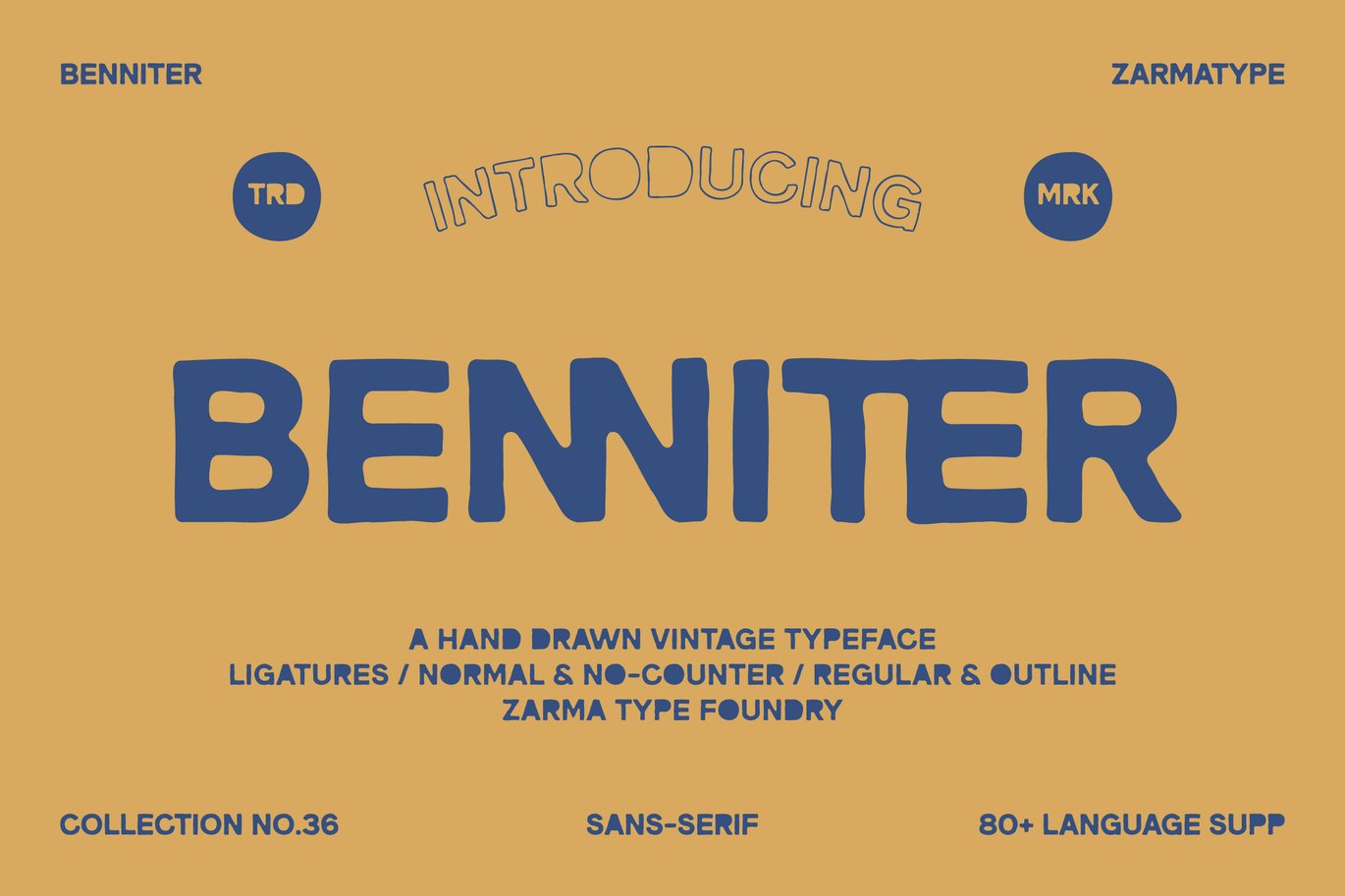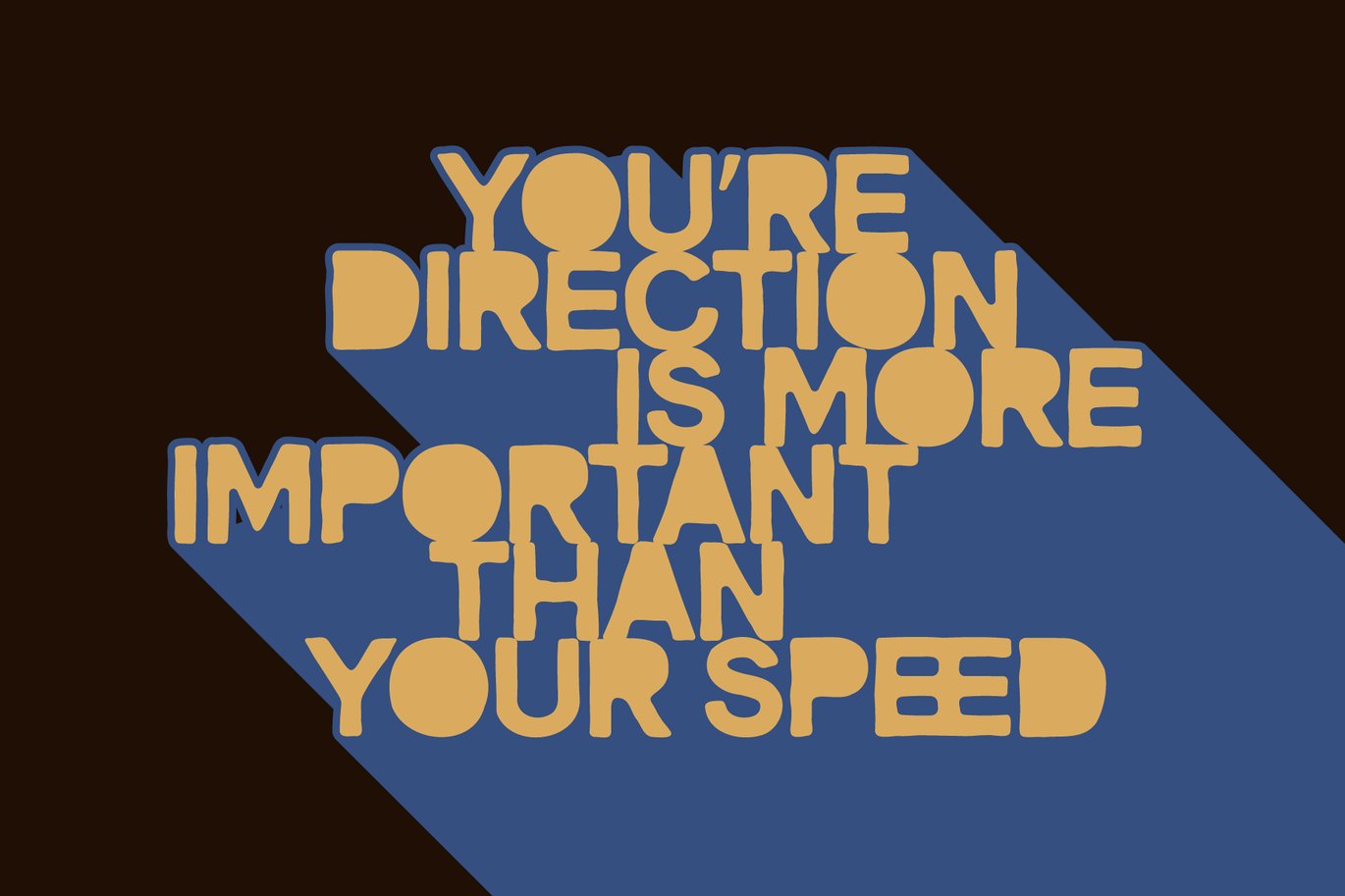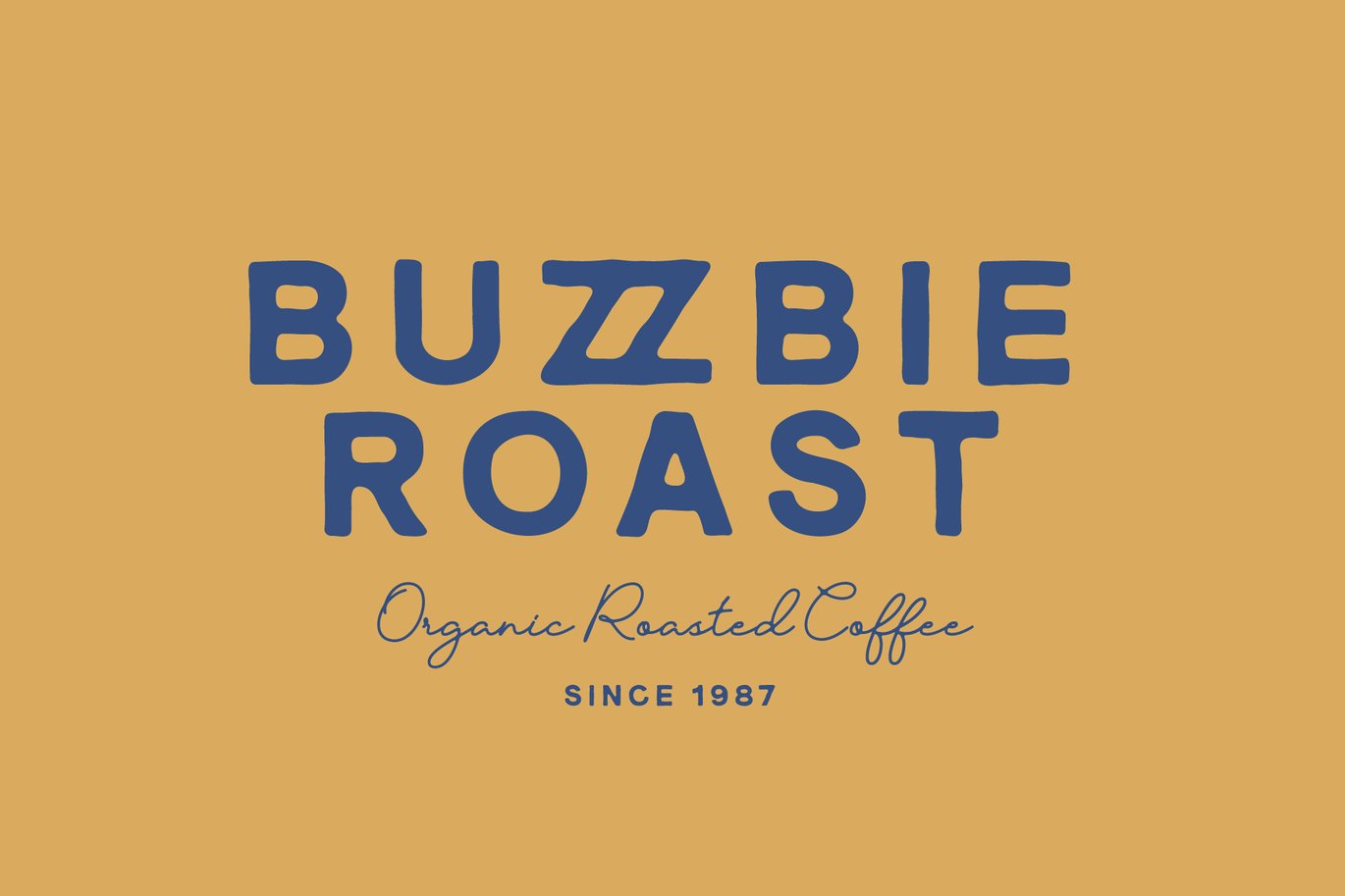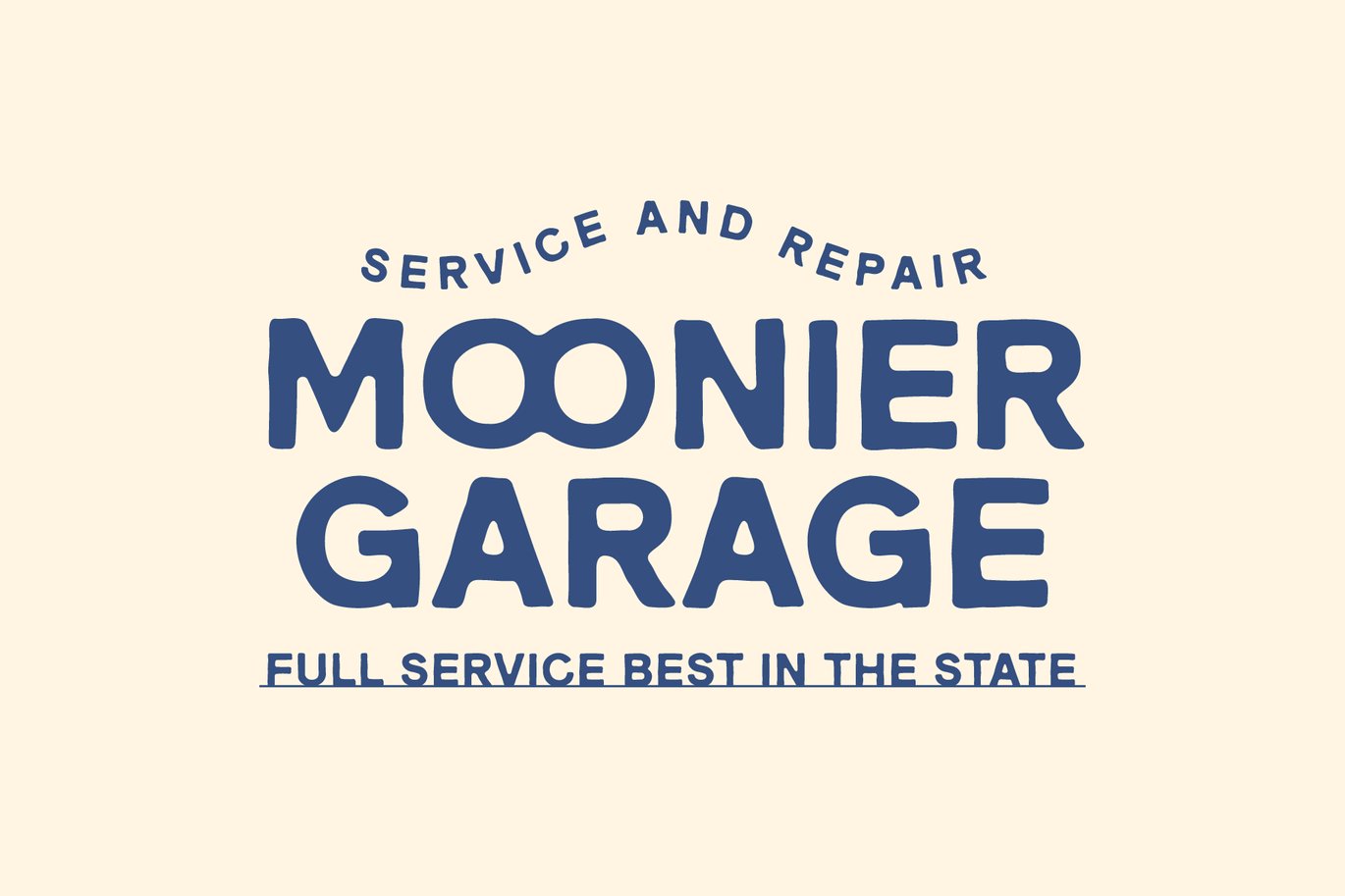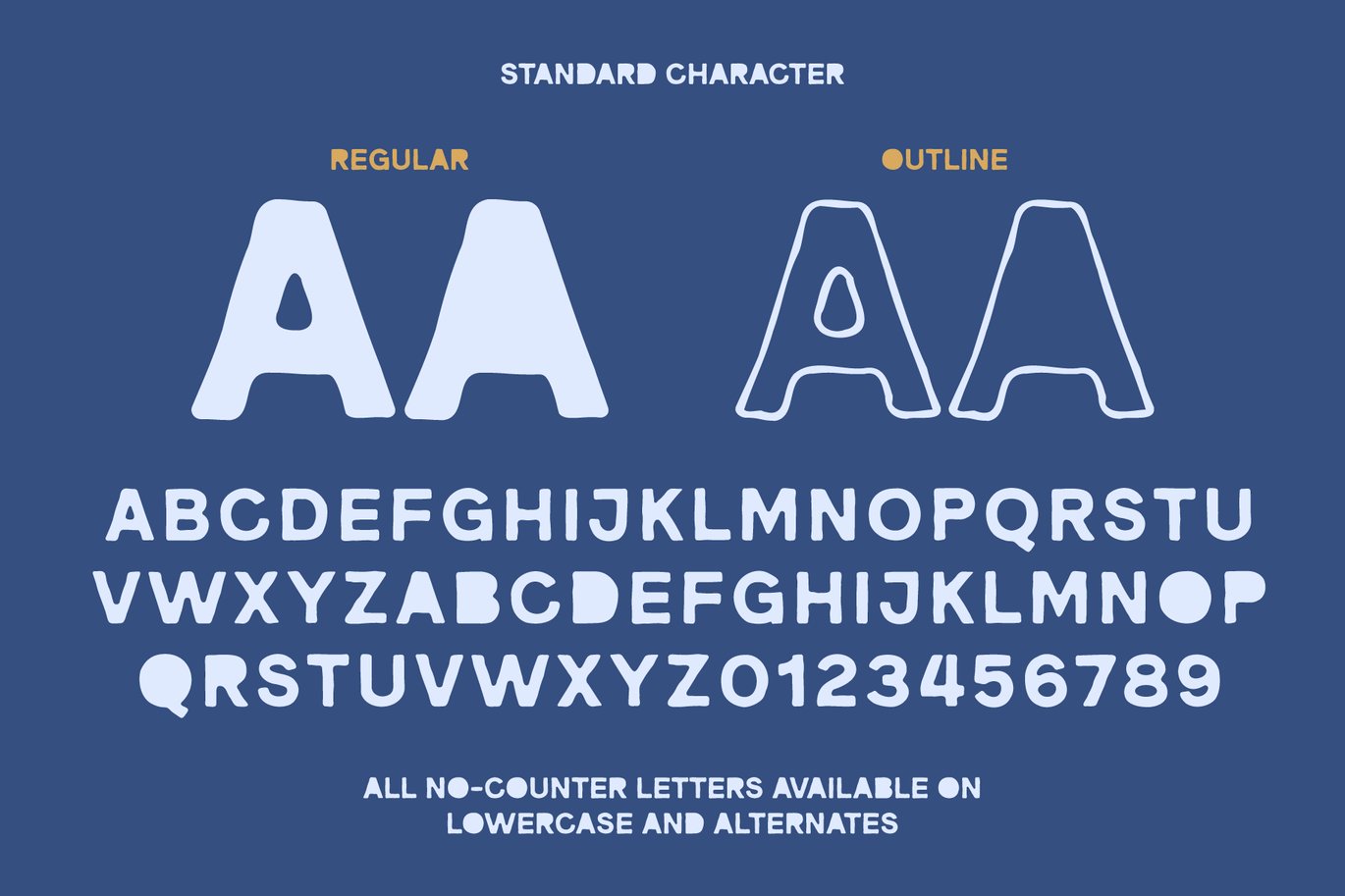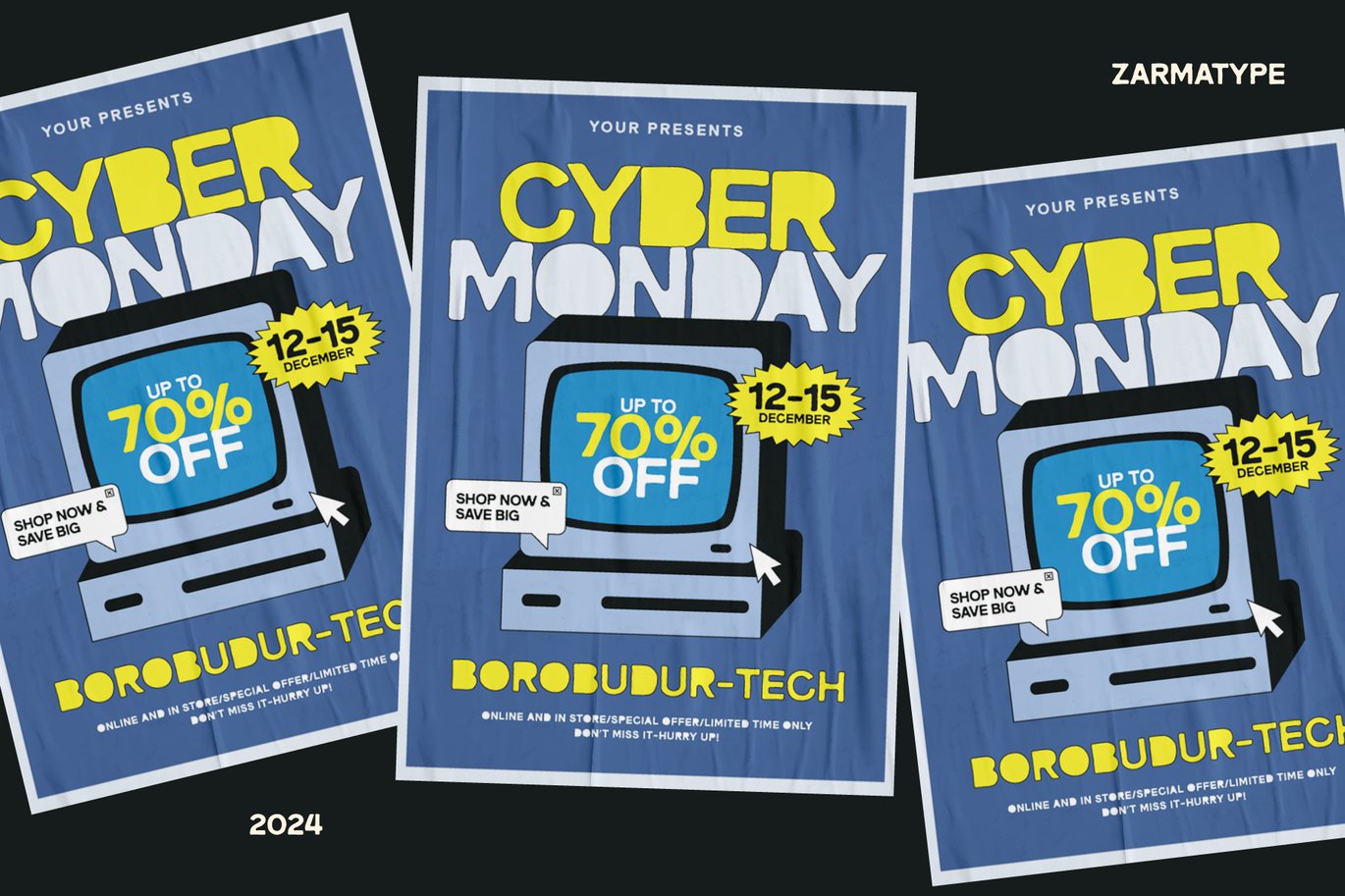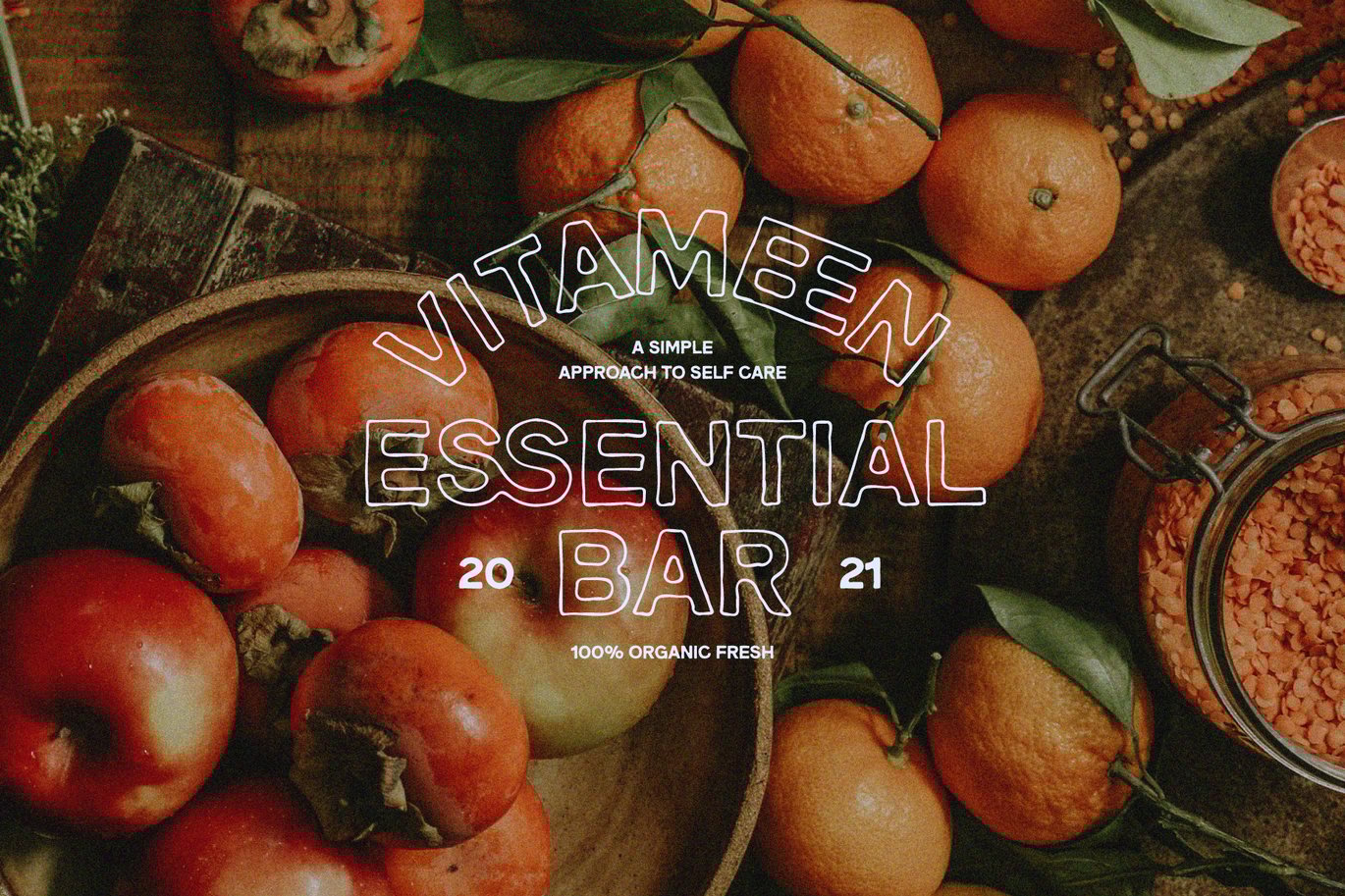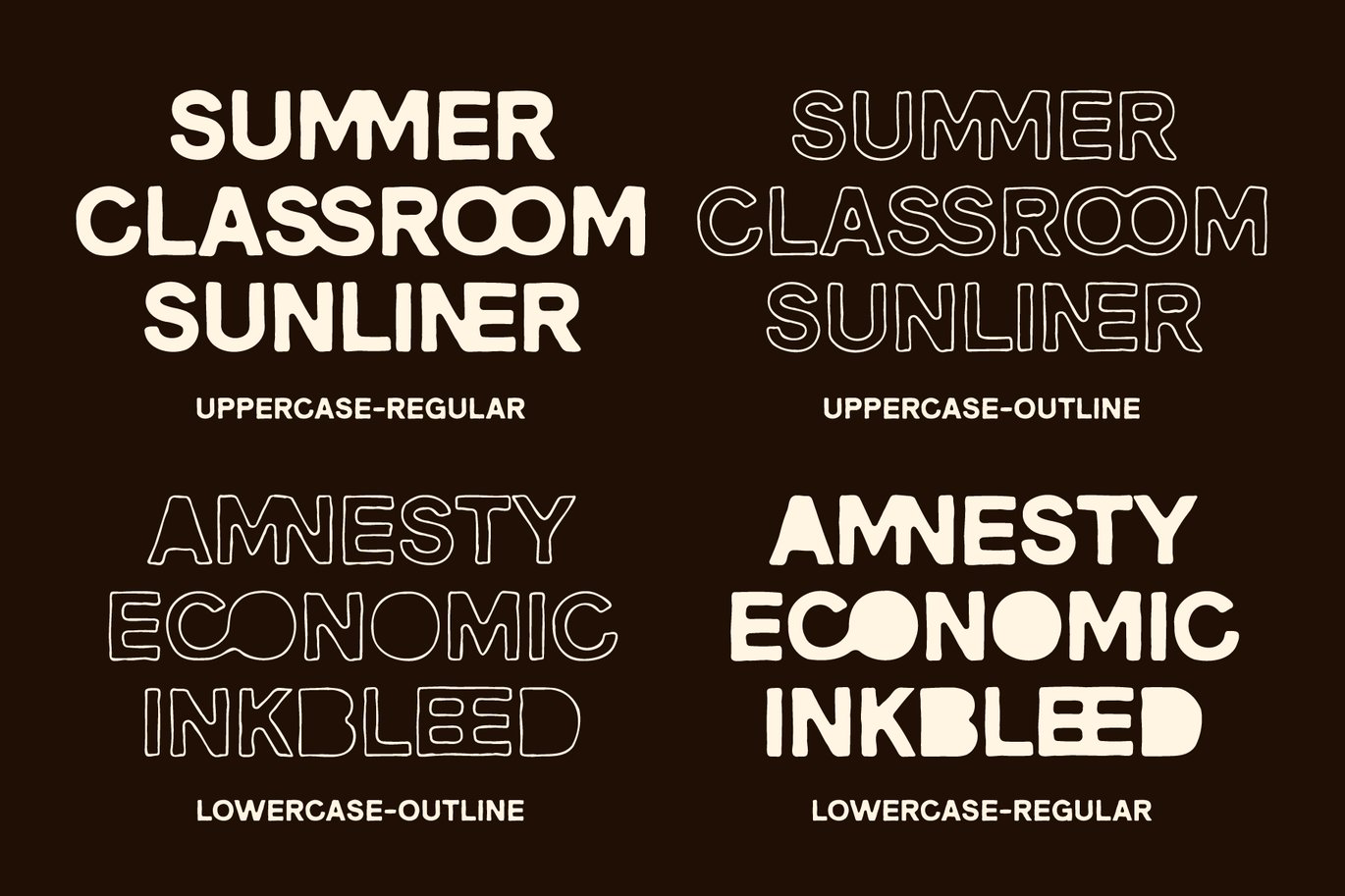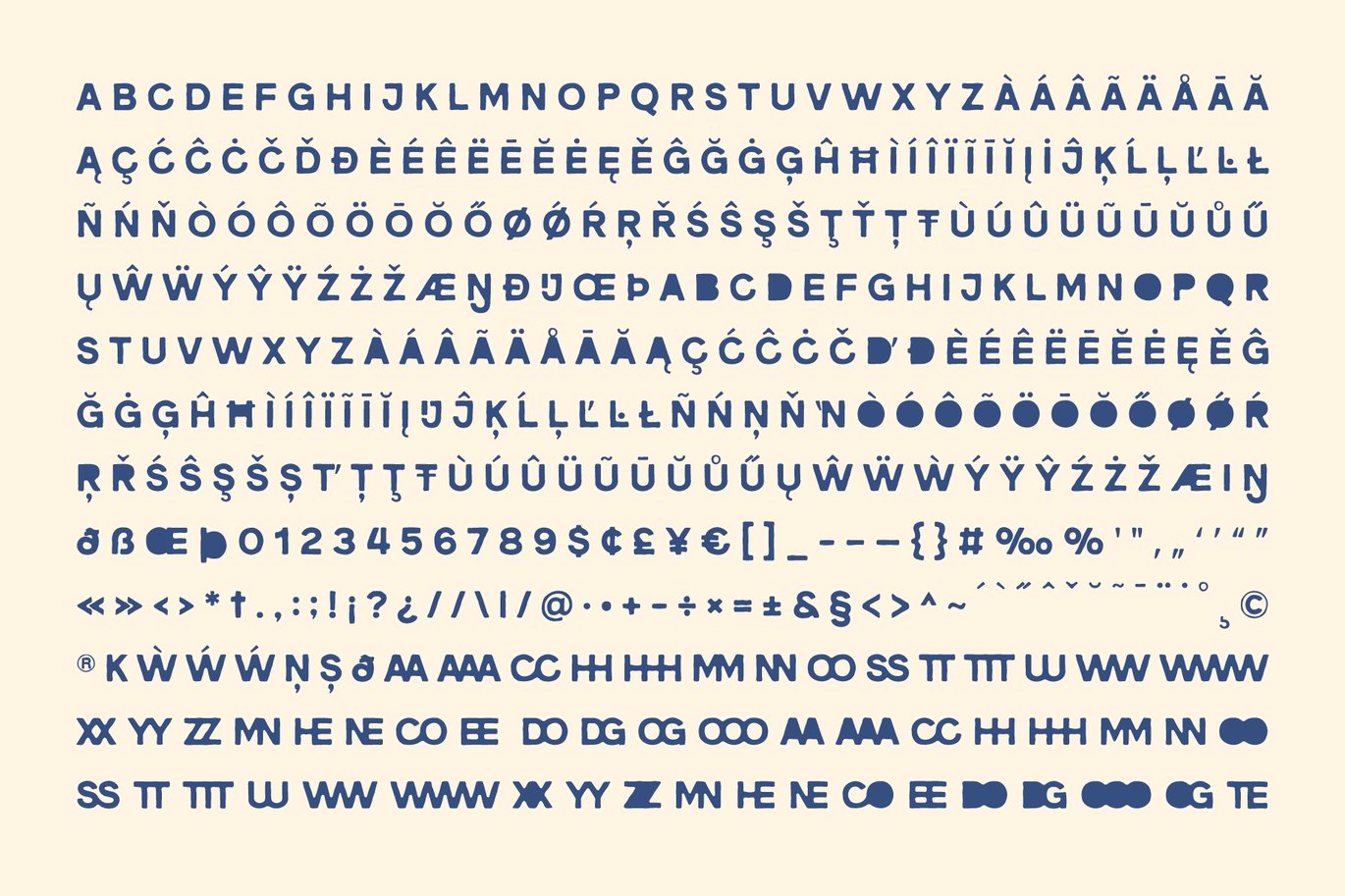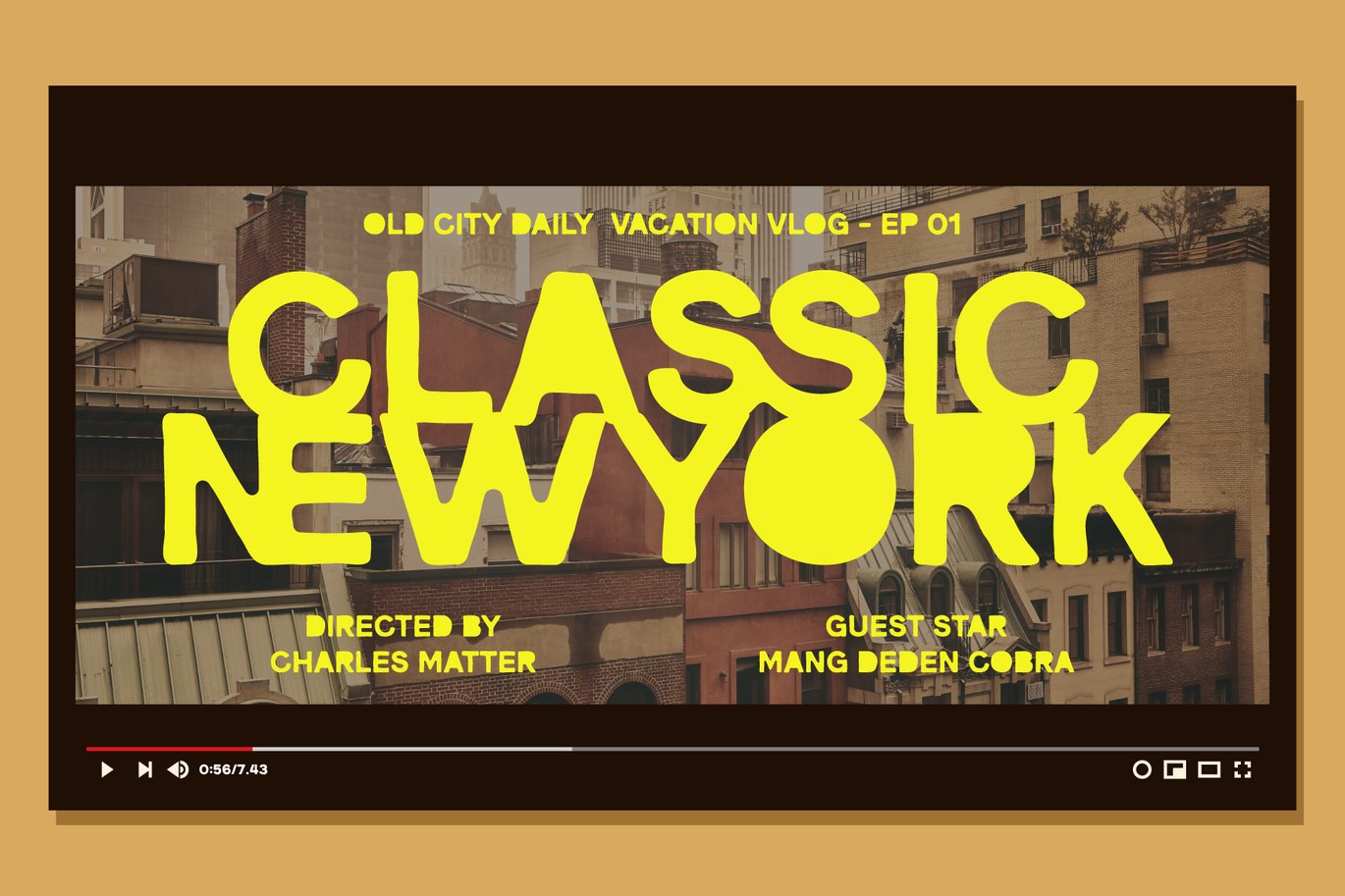
Benniter – Rough Hand Drawn Font
Rough Hand Drawn Font Benniter, a uniquely crafted hand-drawn sans serif typeface. Benniter combines the charm of rough textures with a nostalgic retro feel, making it perfect for a variety of design projects. With its authentic hand-drawn appearance, Benniter adds a personal and organic touch to your work. The font includes both regular and outline styles, offering versatility for your creative needs.
Benniter comes with bunch of unique ligatures and no counter letters available in lowercase, ensuring enhanced usability. It has OpenType features and an extended Latin character set boasting over 400+ glyphs covering more than 85 languages., broadening its appeal for global projects. Ideal for branding, vintage posters, and any creative venture, Rough Hand Drawn Font Benniter is timeless and vintage appeal is perfect for designers seeking to create eye-catching, nostalgic designs.
- All Capital, Normal & No Counter, Numbers, Punctuation
- OpenType Feature
- Extended Latin
- 85+ Language Supported